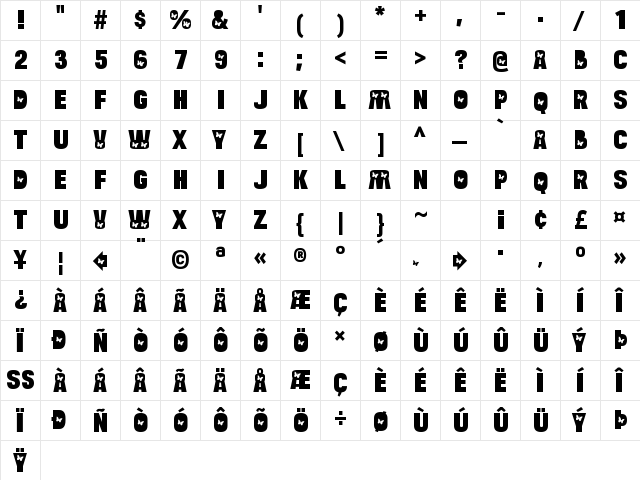
Bulltoad Butterfly Regular
Design Context for Bulltoad Butterfly Typeface
Bulltoad Butterfly is a composed and adaptable typeface that performs quietly and consistently across a wide range of design contexts.